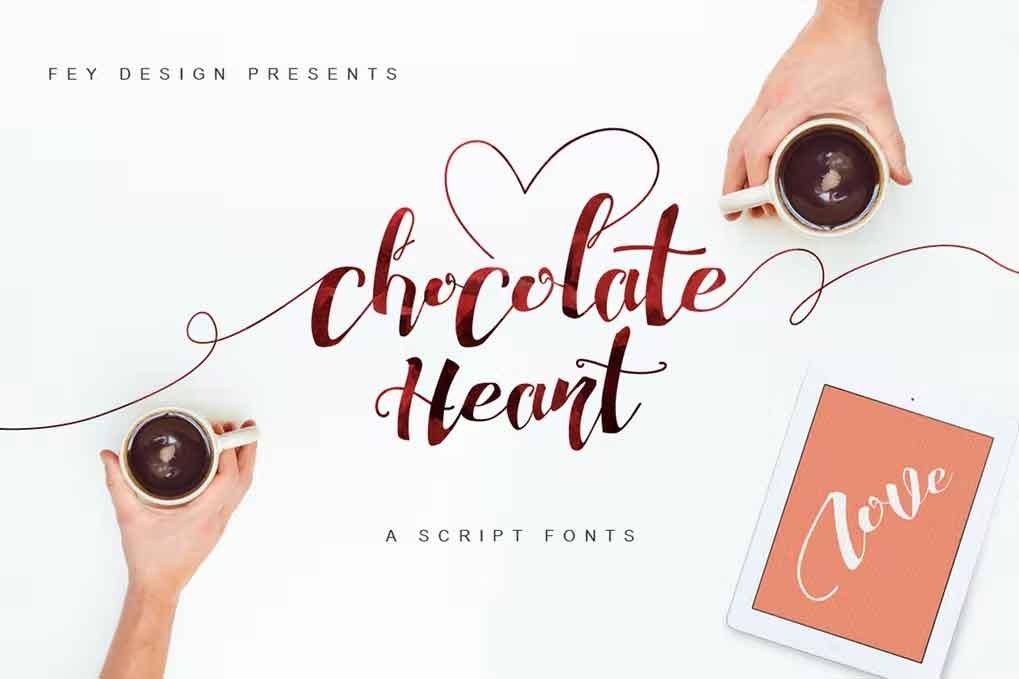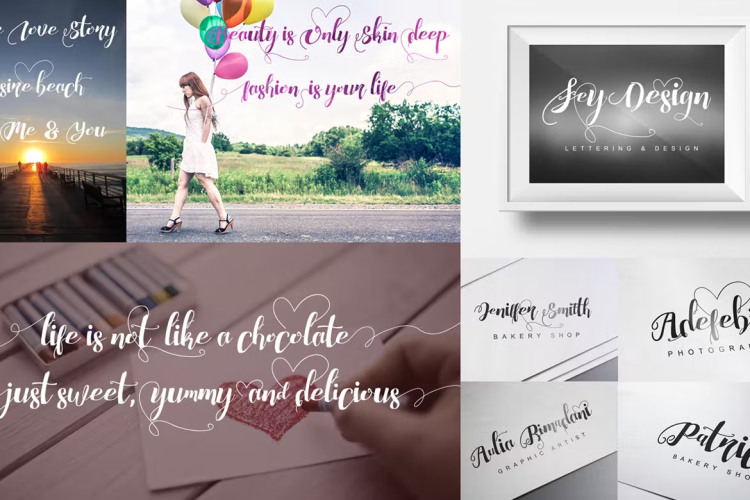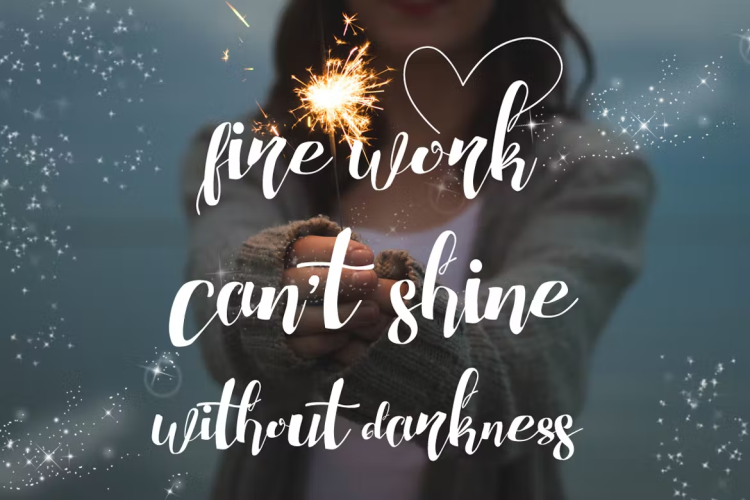
Chocolate Heart Font
Chocolate Heart Script Font
Suitable for design, element design, wedding, event, t-shirt, logo, badges, sticker, and awesome work, etc…
Chocolate Heart Font is a Script And Handwritten font that brings a professional and versatile look to your projects. Chocolate Heart Script Font Suitable for design, element design, wedding, event, t-shirt, logo, badges, sticker, and awesome work, etc… About Item: Open Type Features Fonts, OTF and TTF Combination alternative ligature f.